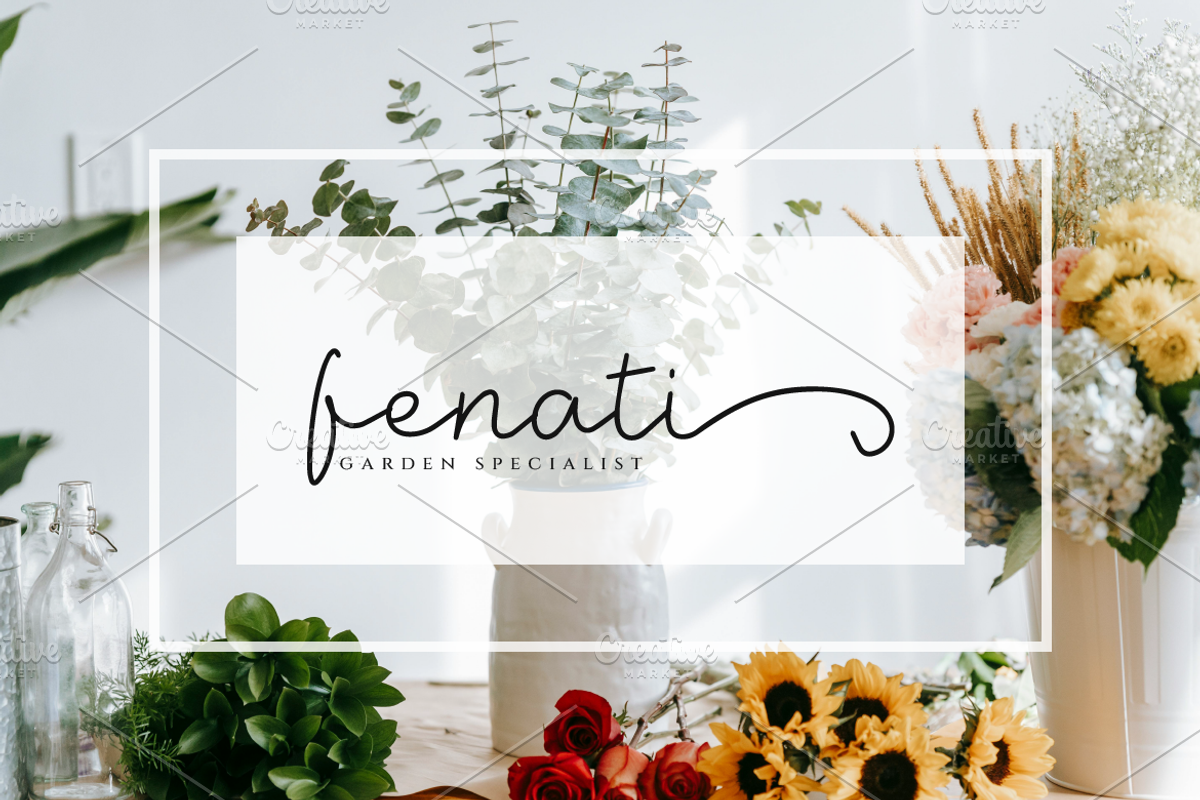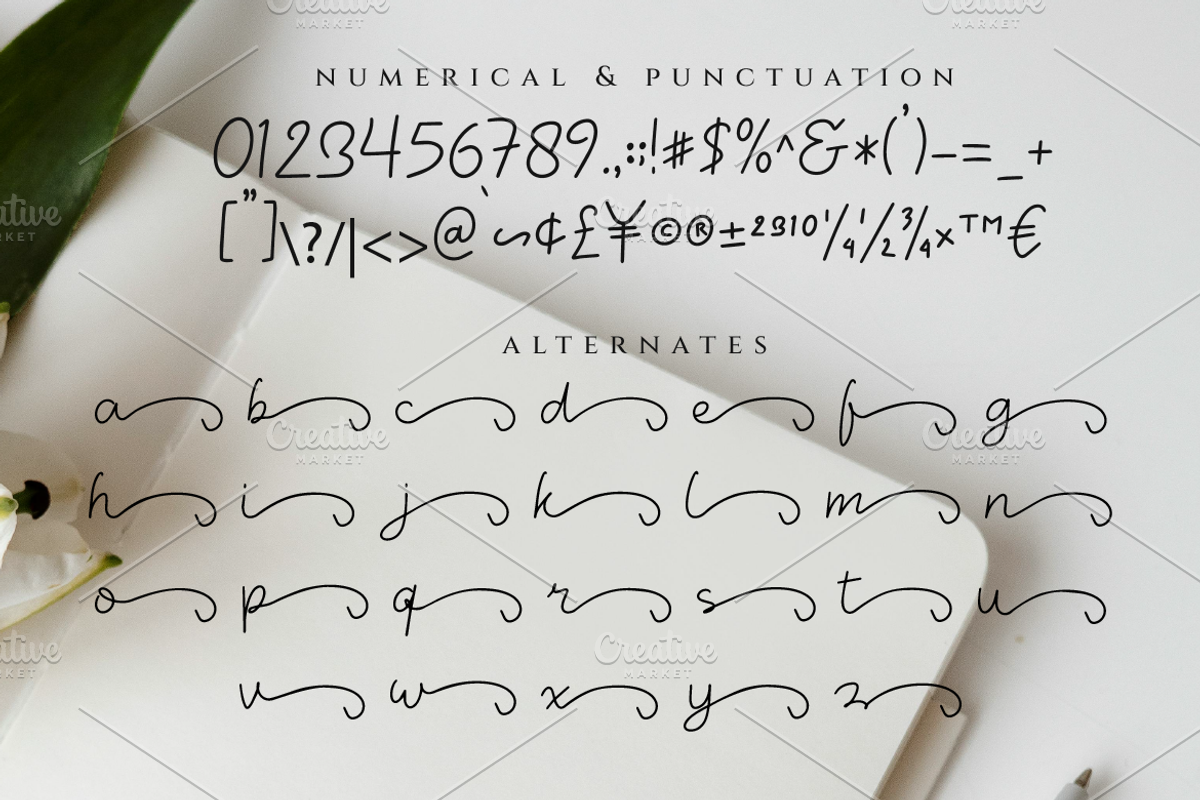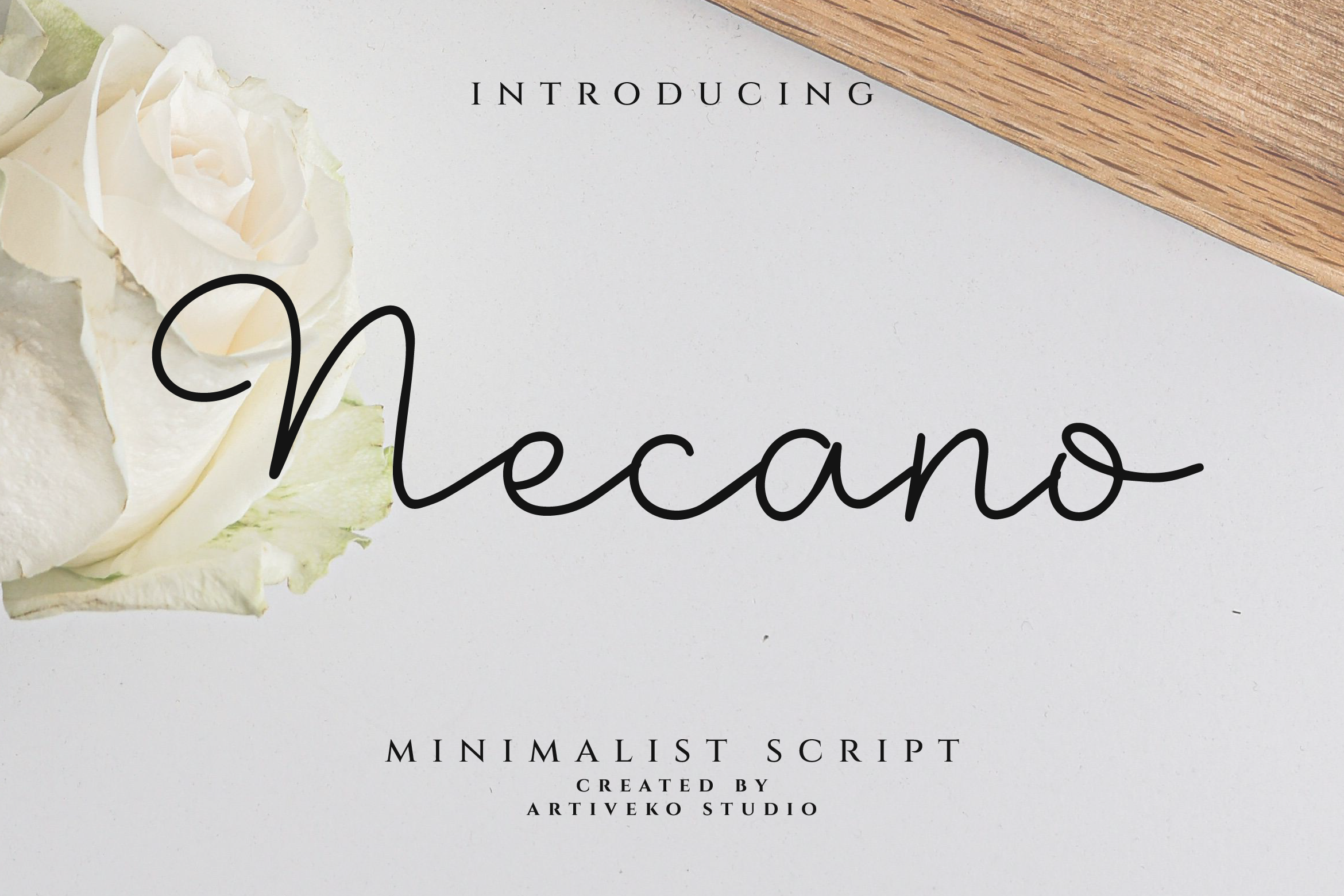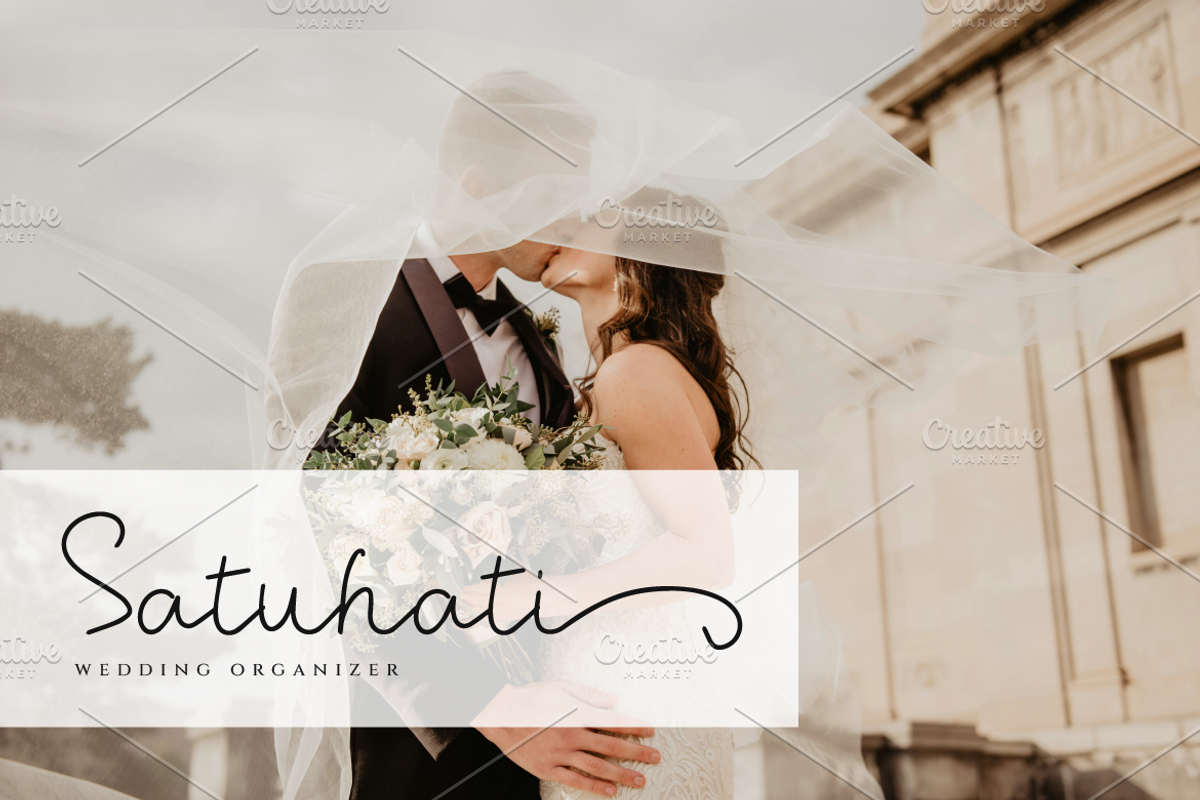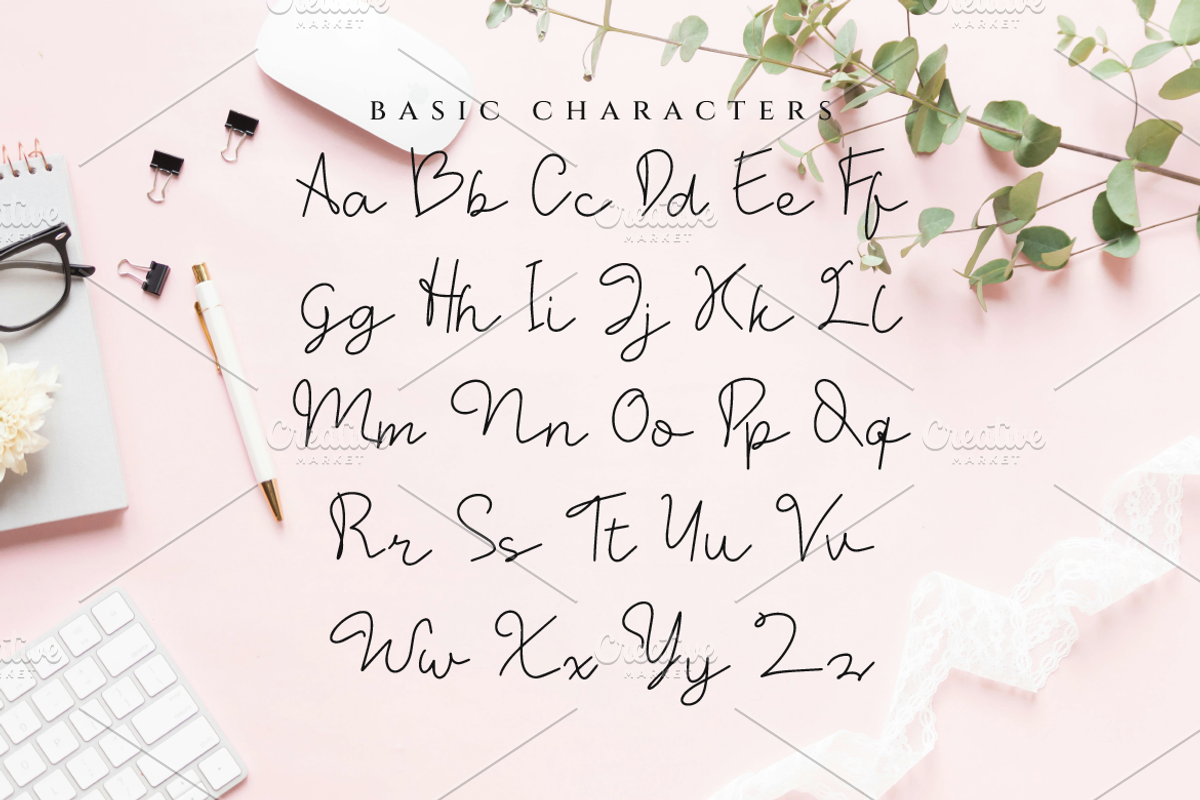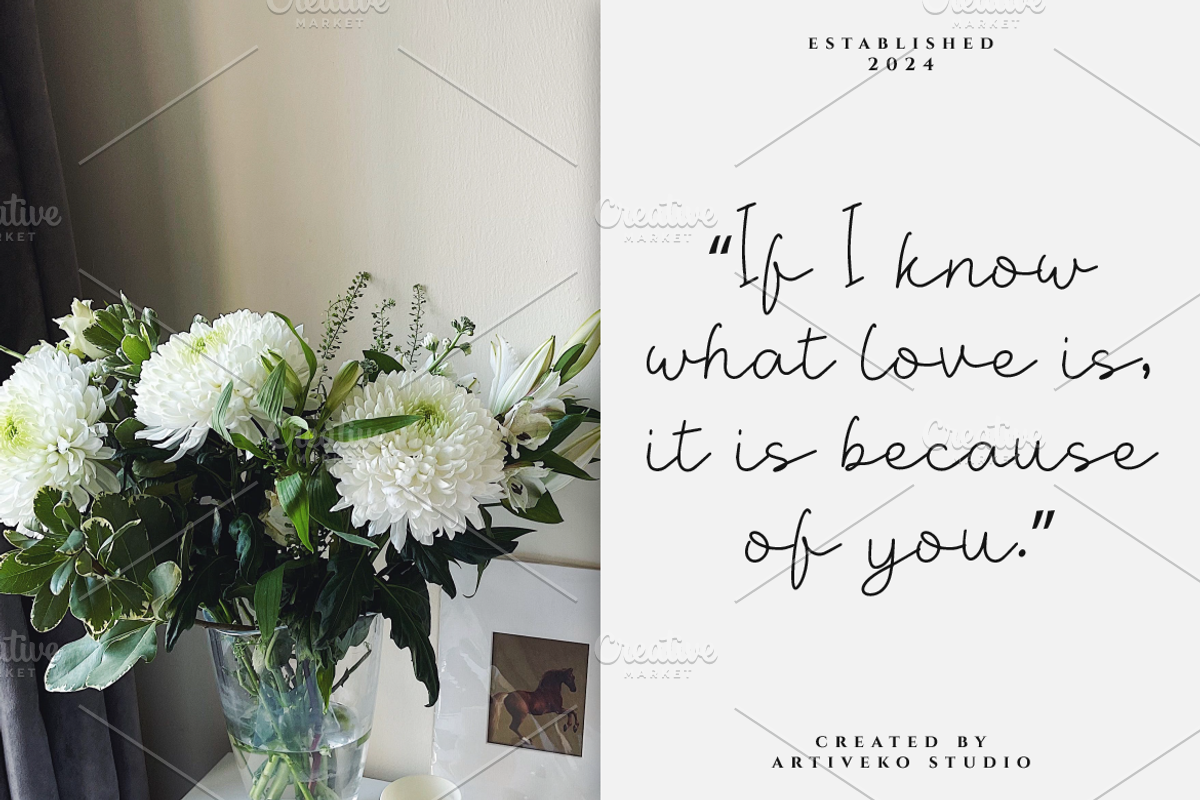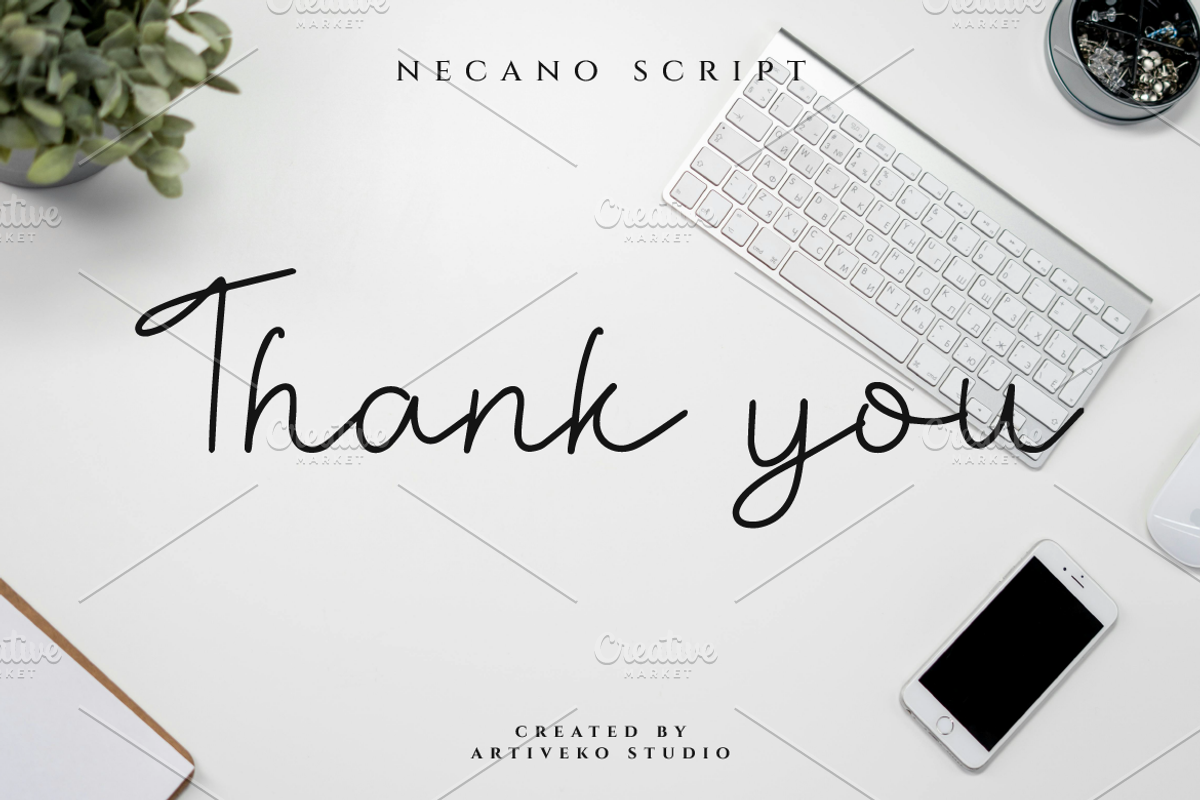
Necano Minimalist Script Font
Necano is a minimalist script font by Iwan Alwan, featuring smooth, flowing letterforms with a clean, modern touch. Perfect for elegant branding, invitations, and logos, Necano brings a simple yet refined charm to any project. With multilingual support, ligatures, and alternates, Necano offers versatility while maintaining its minimalist and graceful aesthetic, making it ideal for designs that seek a balance between elegance and simplicity.